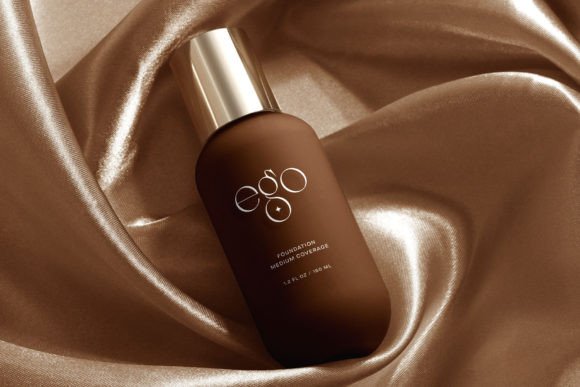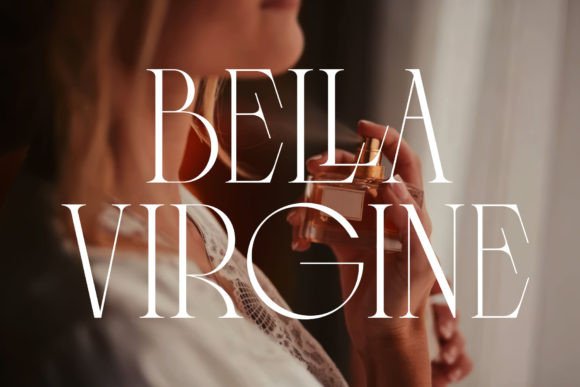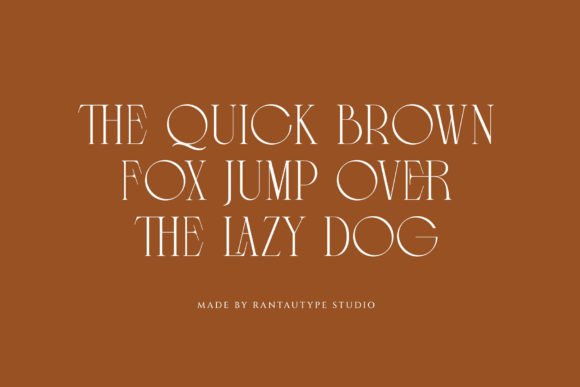
Introduction to Cannera Font
Cannera is a stylish serif font that blends classic elegance with modern sophistication.
Its refined serifs and well-proportioned letterforms make it perfect for branding, editorial work, and luxury designs This font brings a sense of timeless beauty and grace, enhancing any project with a touch of class.
Key Features of Cannera Font